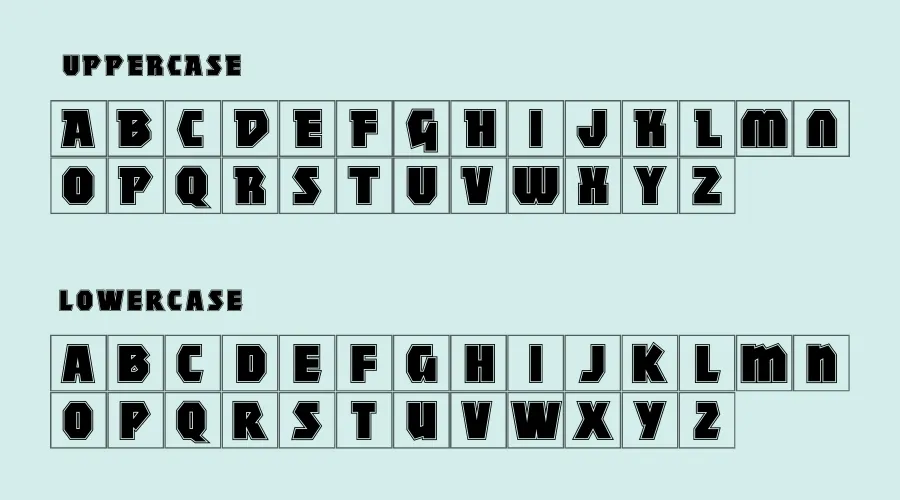
About Mighty Windy Font
Manfred Klein designed Mighty Windy Font it is a fancy style the following section contains a preview in which 31 special characters, 26 letters of the alphabet, and a numbering system from 0 to 10 are selected for evaluation. There are two formats available for the font TTF and OTF.
The font has been used in a variety of designs for many reasons. Your simple designs will look bold and stylish with them. Due to its extra bold characters, it works well for titles and headings of various types of websites, blogs, web pages, and text documents.